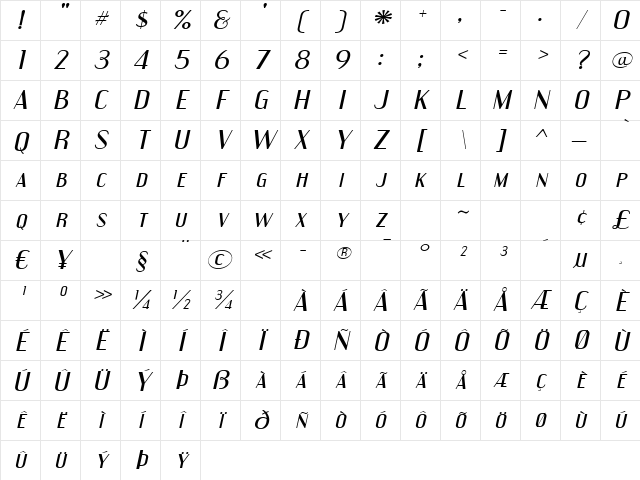
Engebrechtre Expanded Italic Free Font
Engebrechtre Expanded Italic
Engebrechtre Expanded Family
Engebrechtre Expanded Italic
Complete Engebrechtre Expanded Italic glyph index. Displaying only characters natively supported by Engebrechtre Expanded Italic font.
Design Context for Engebrechtre Expanded
Engebrechtre Expanded is a composed and adaptable typeface that performs quietly and consistently across a wide range of design contexts. The slanted form adds forward momentum and visual energy.
Pro Tip: Use Engebrechtre Expanded for emphasis, pull quotes, and subheadings where its slanted energy can add rhythm to the layout.